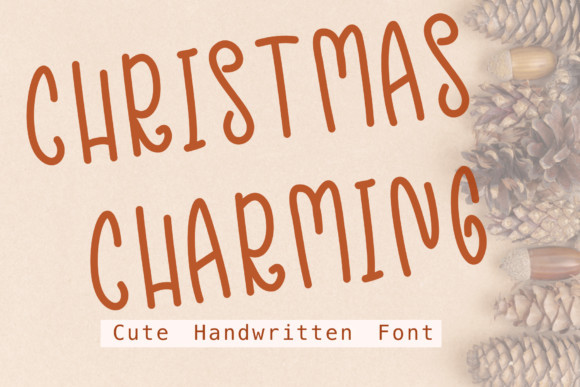
Christmas Charming Font
Christmas Charming is a cute and magical handwritten font. Every letter has a unique and beautiful touch, which will make your design come alive!